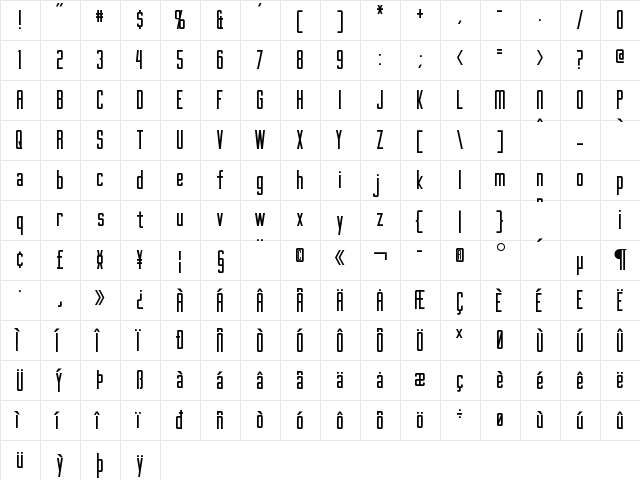
Gotham Nights Regular
| Foundry | Neale Davidson |
| Designer | Neale Davidson |
Design Context for Gotham Nights Typeface
Gotham Nights takes a measured approach to typography — its balanced proportions and neutral character make it a reliable workhorse for both digital and print work.